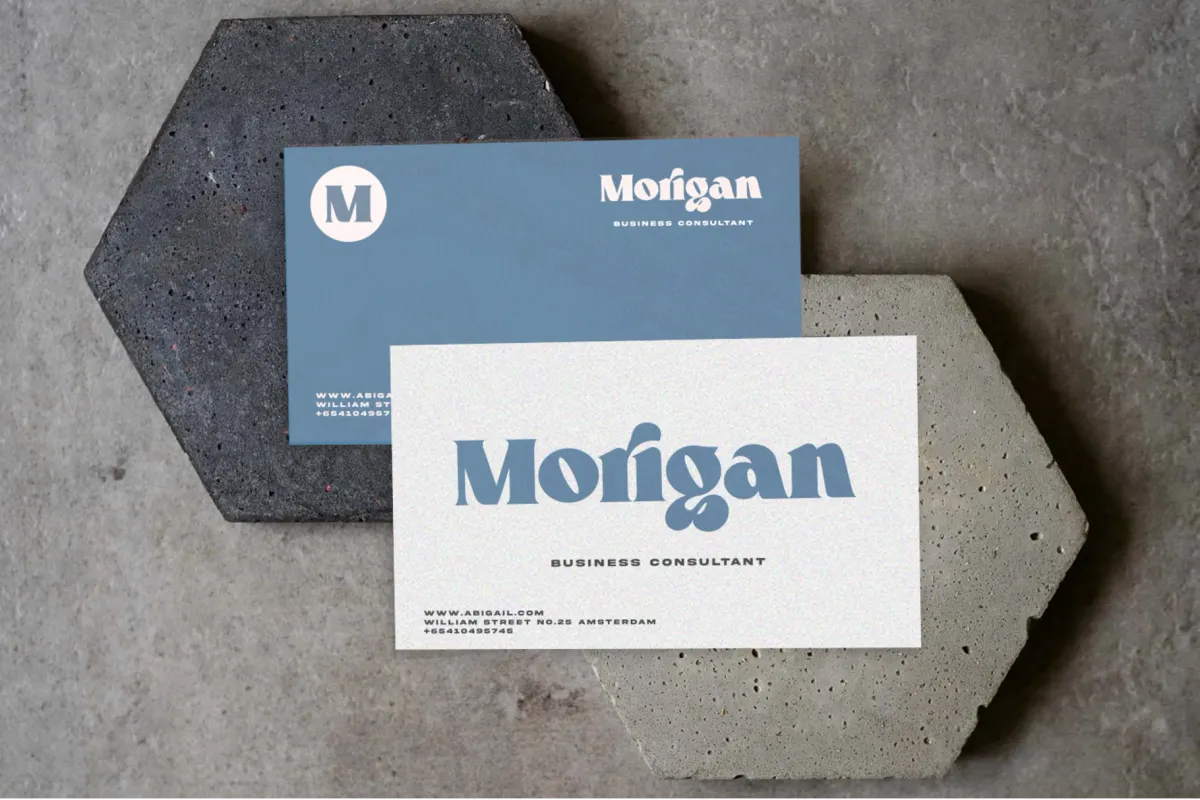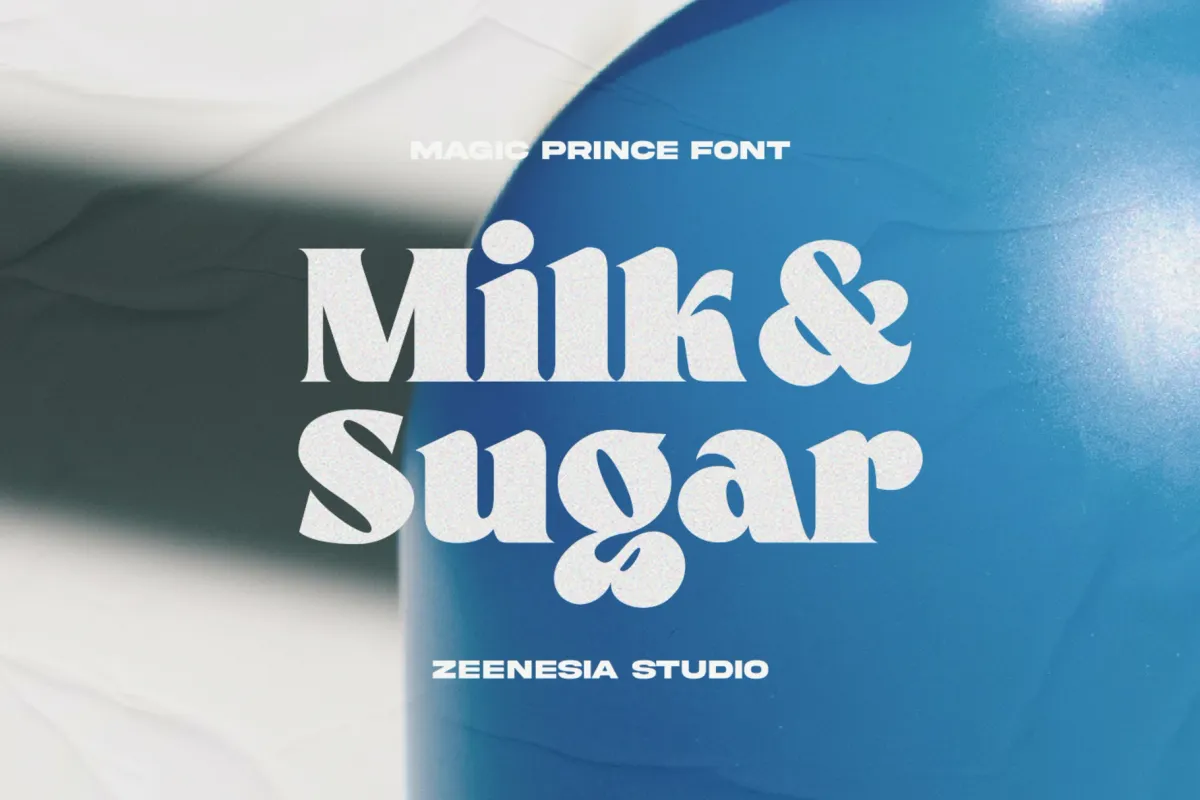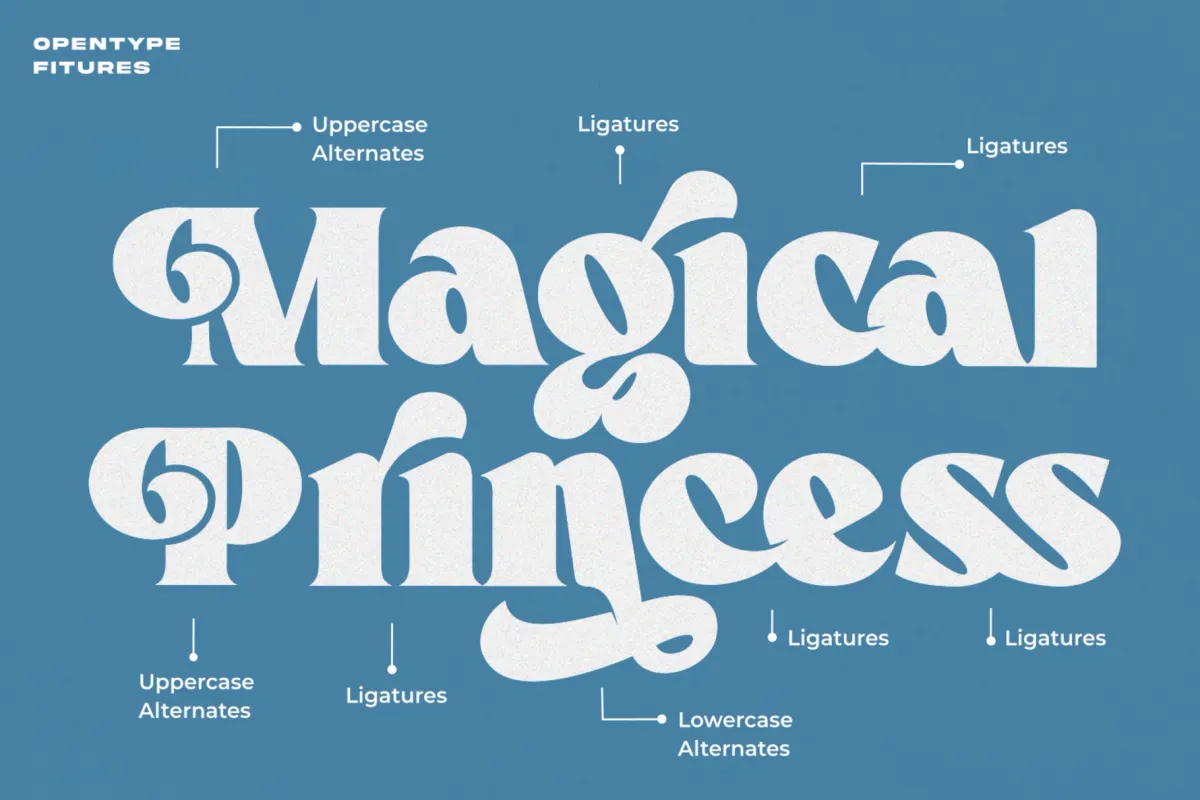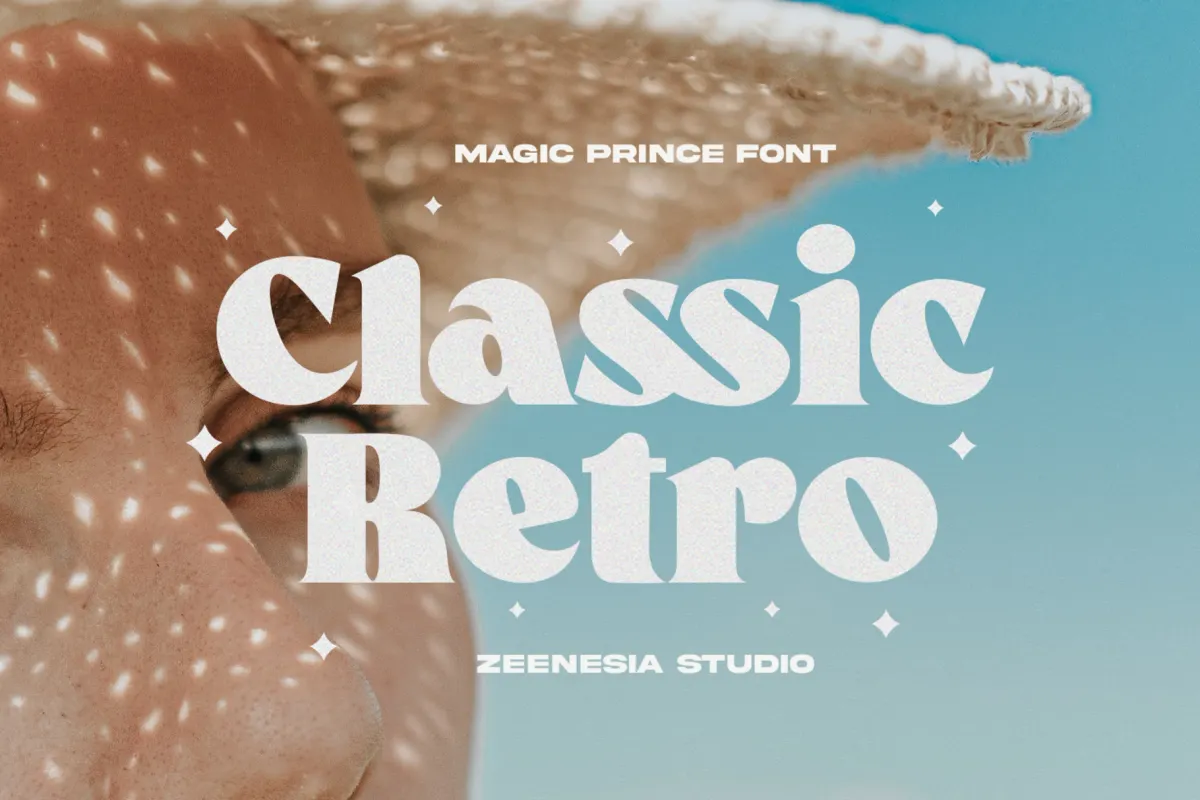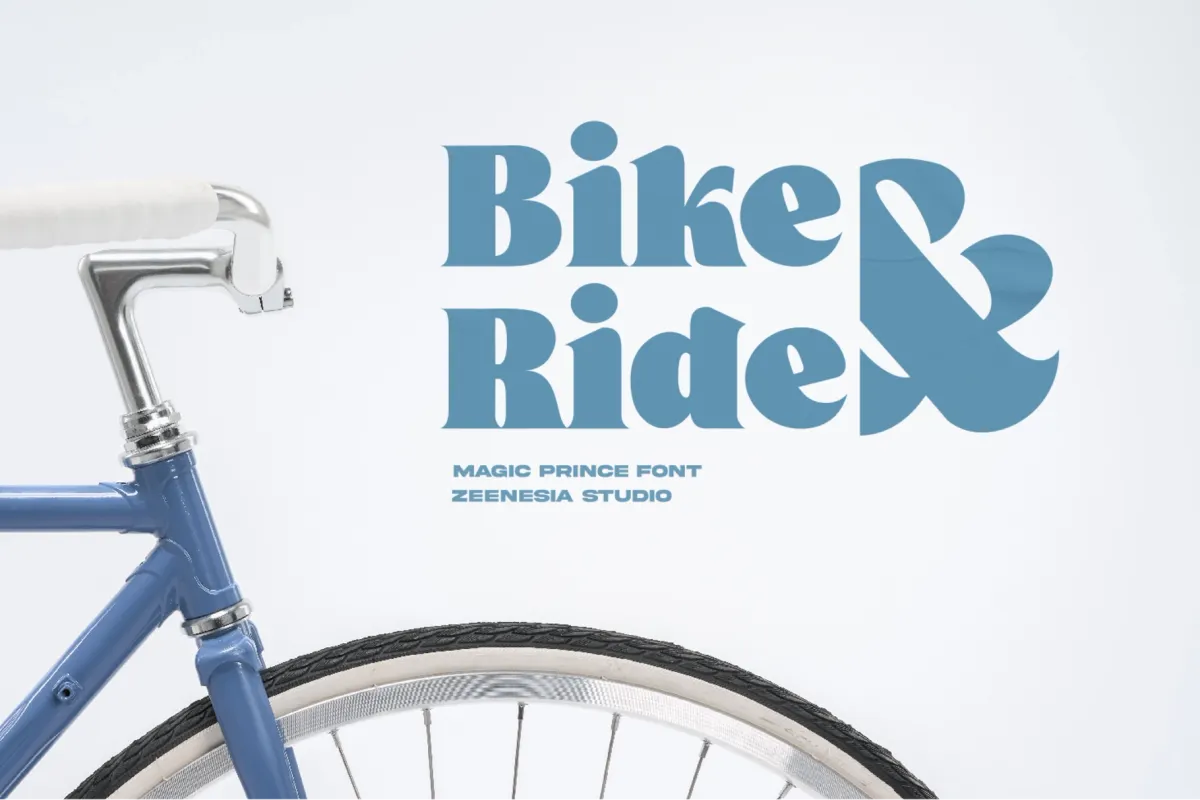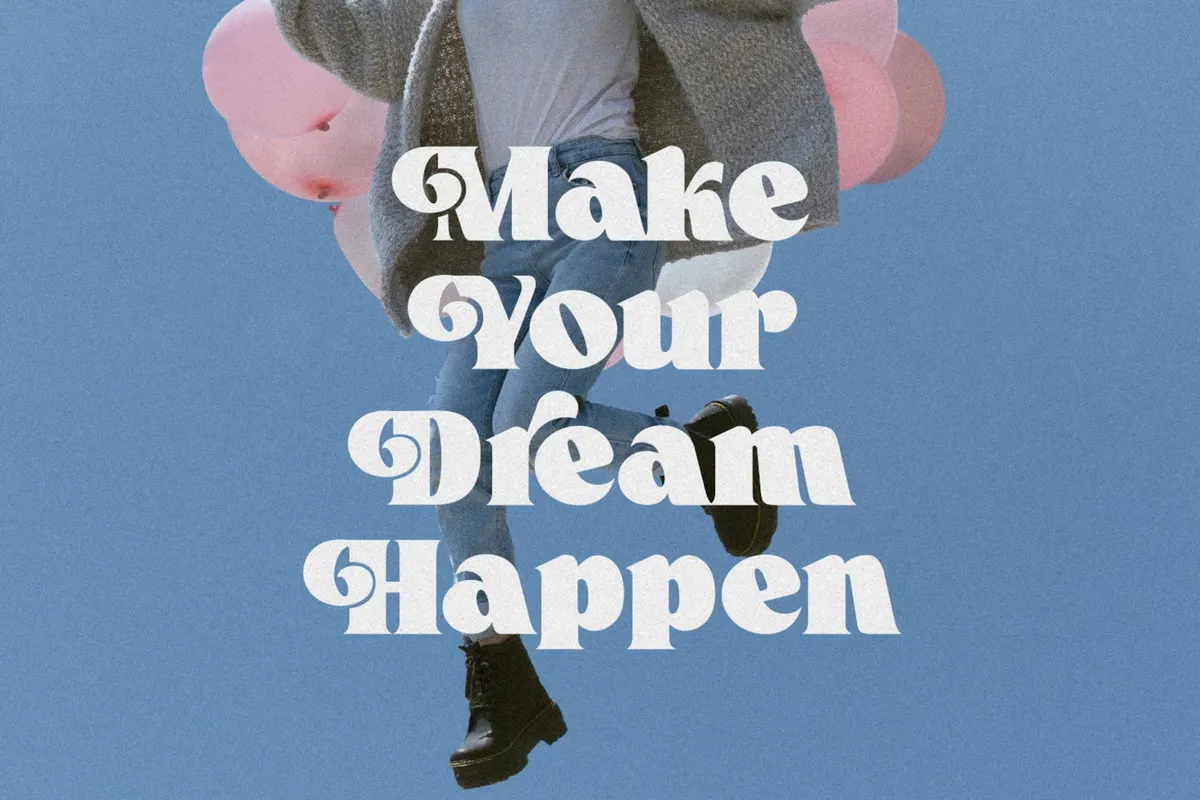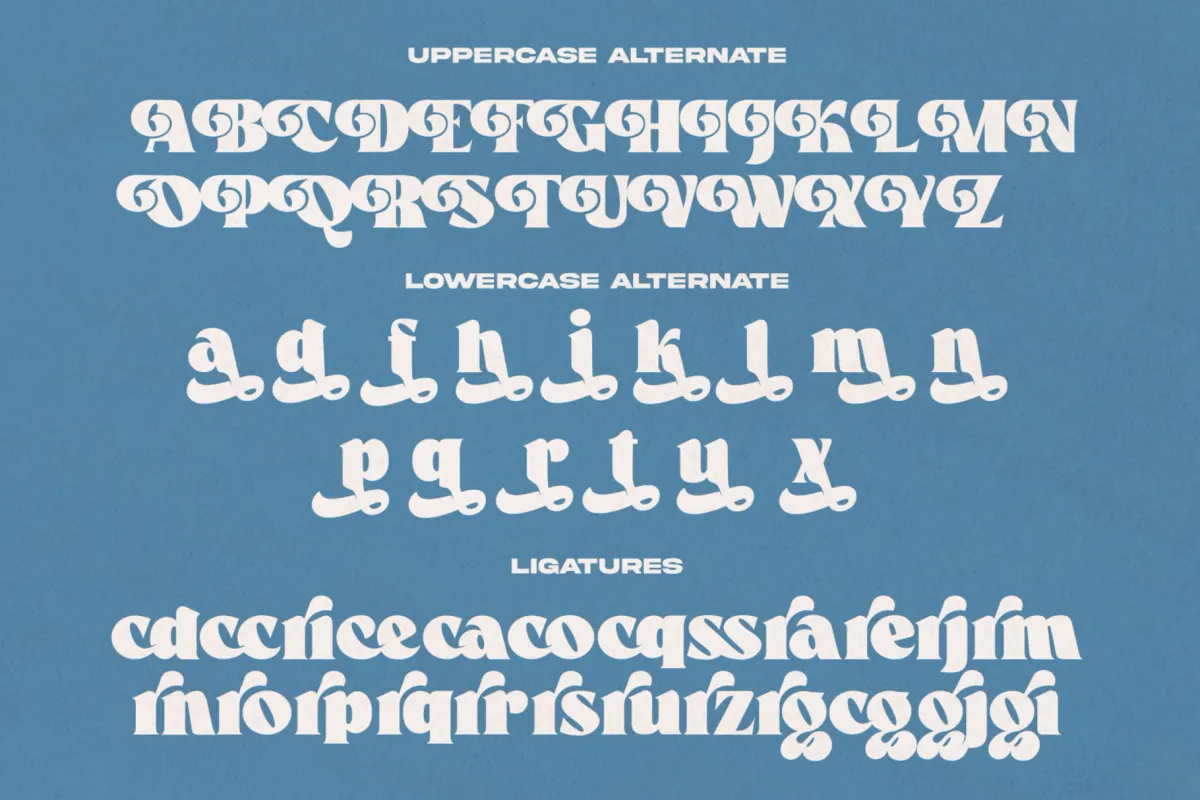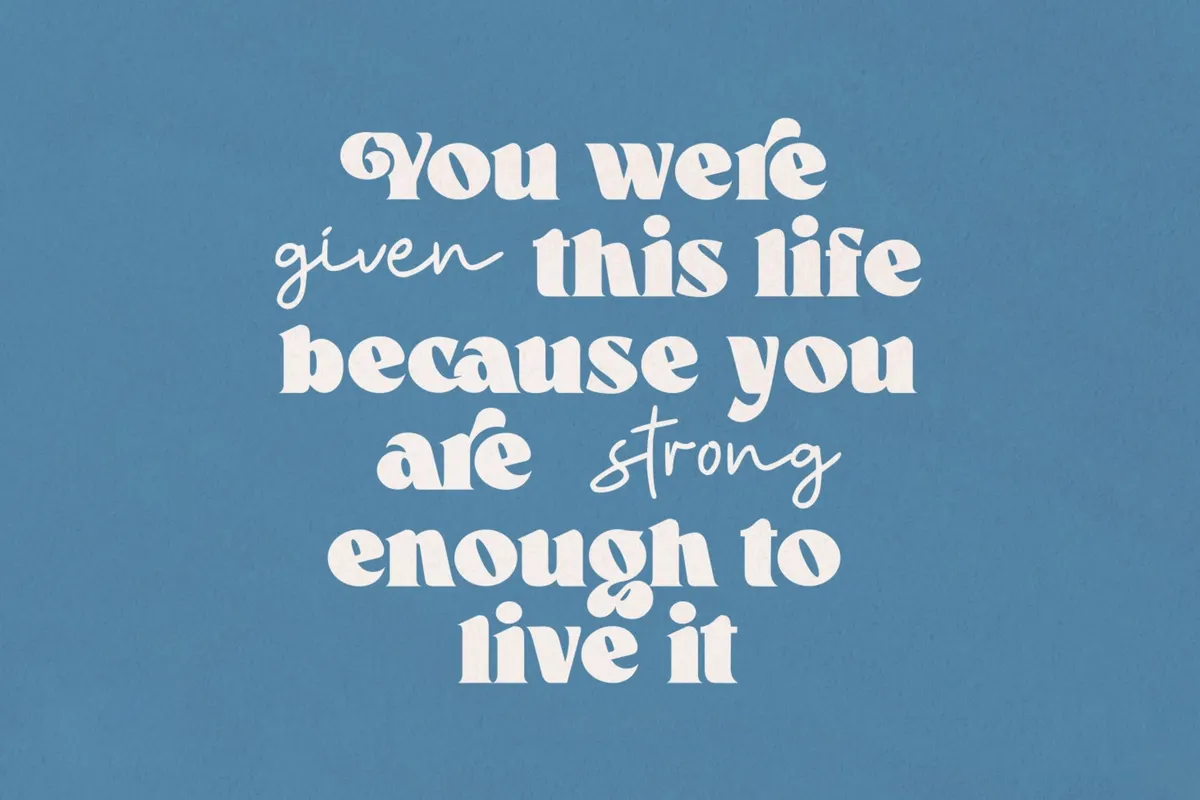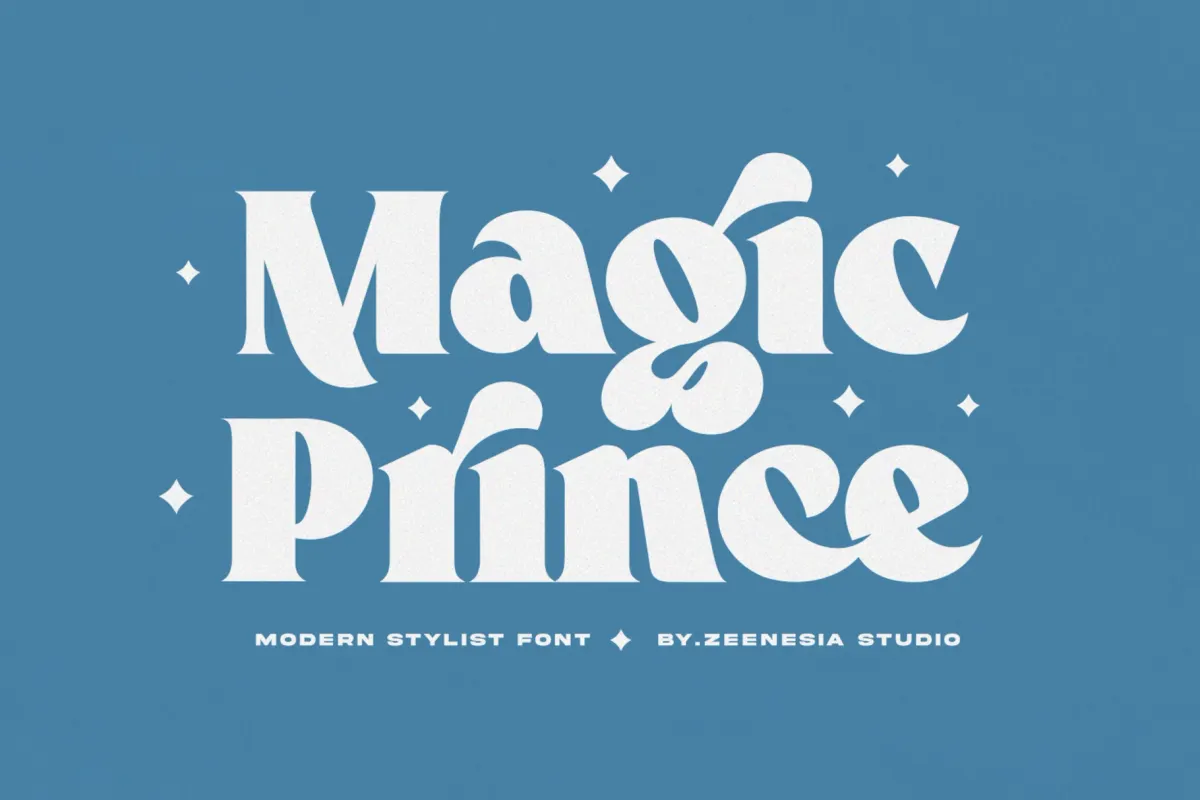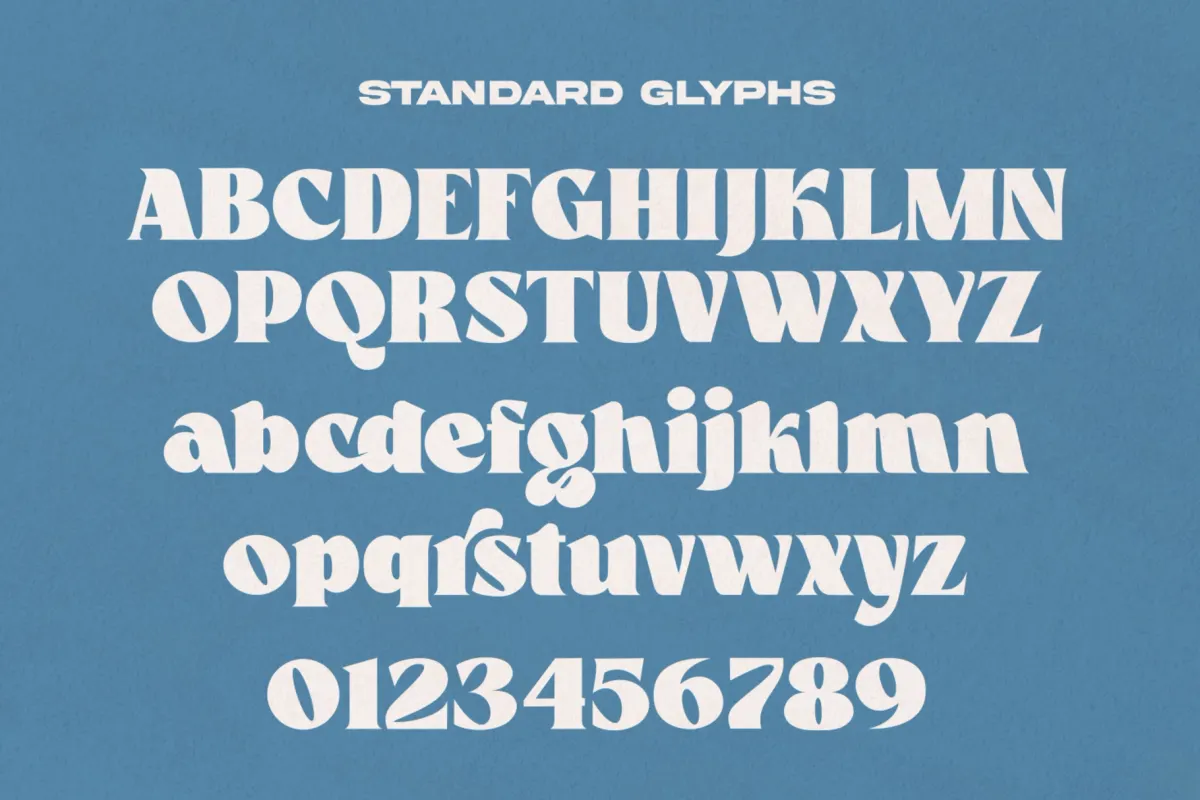
Magic Prince - Vintage Display Font
Magic Prince
This vintage display typeface has chunky serif forms, curled alternates, and tight ligatures with a playful 70s-style rhythm. The letterforms are bold and decorative, with enough character for headline work, logo marks, packaging, posters, album covers, apparel graphics, quote designs, stickers, branding systems, book covers, social media posts, café menus, and editorial titles.
Magic Prince works best when the typography gets the main role: short phrases, charming wordmarks, expressive layouts, and nostalgic compositions with a little wink. Uppercase alternates add ornate swashes, lowercase alternates bring extra movement, and the ligatures help words lock together with a smooth custom-lettered look.
- Standard glyphs
- Uppercase & Lowercase alternates
- Ligatures